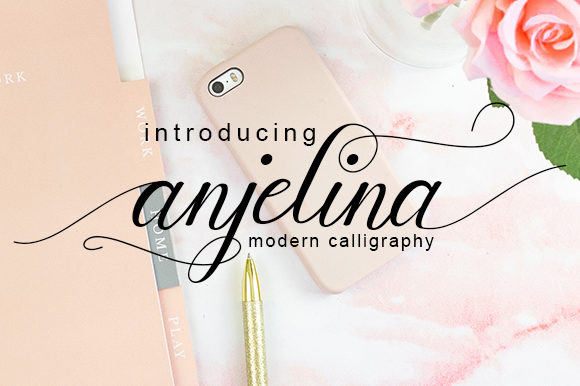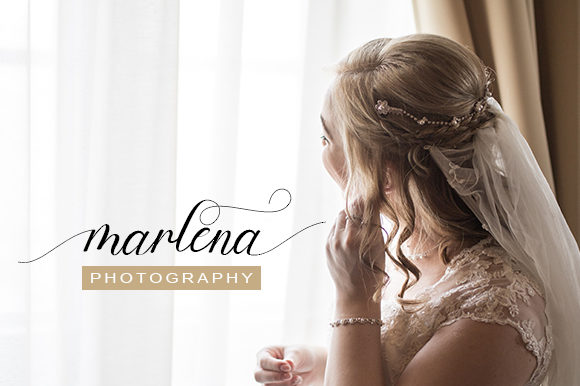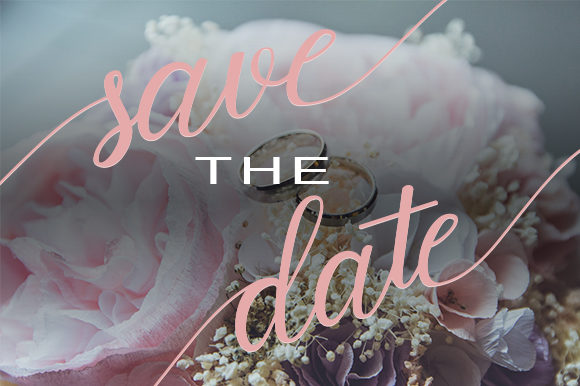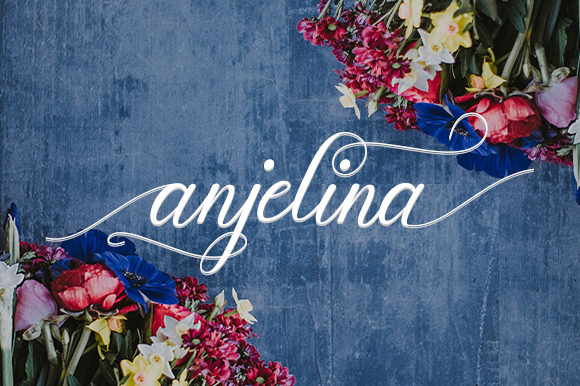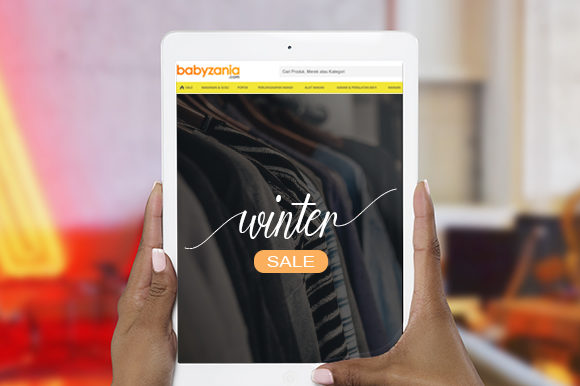
Anjelina Font
About Anjelina Font
Updating classic calligraphy with a contemporary twist, Anjelina is a stunning handwritten font! It will effortlessly elevate any design creation.